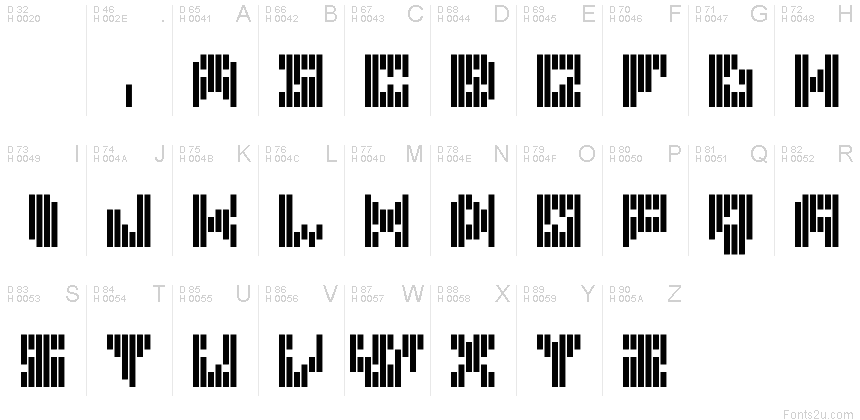
00ne Not so atroce pixels redrawn by neurone error of FontShop International GmbH is a free barcode dingbat font built from stark vertical bars and rectangular blocks. The forms are narrow, rigid, and deliberately machine-like.
Technology brands and electronic music labels can use its coded appearance for logos, packaging, and merchandise. Its repeated bar motif also suits game interfaces and science-fiction posters, where the lettering can read as part type, part scanning graphic.
00ne Not so atroce pixels redrawn is based on 00ne Not so Atroce Pixels by neurone error (http://fontstruct.fontshop.com/fontstructors/neurone_error), which is based on pixel atrocities by ssaamm (http://fontstruct.fontshop.com/fontstructors/ssaamm_1)